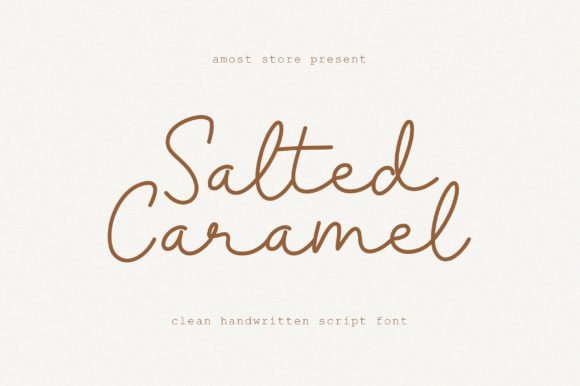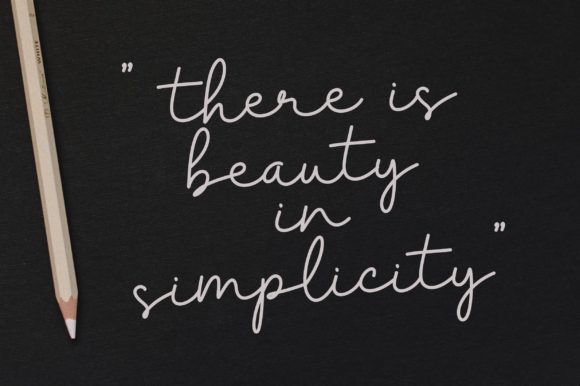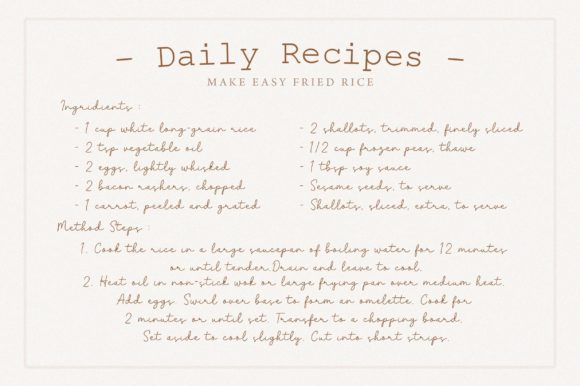
About Salted Caramel Font
Salted Caramel is a thin lettered and delicate script font that exudes elegance and class. This font was particularly crafted for those who need a beautiful and refreshing look to their designs.